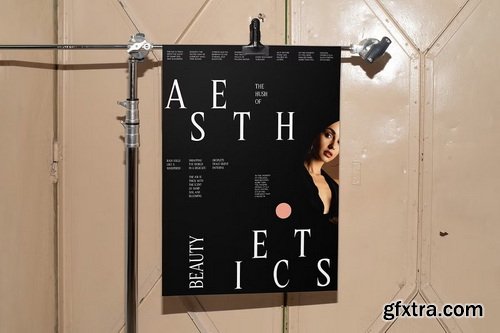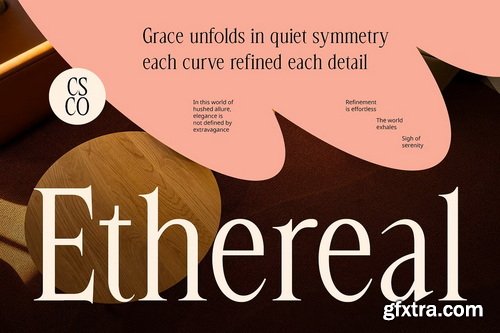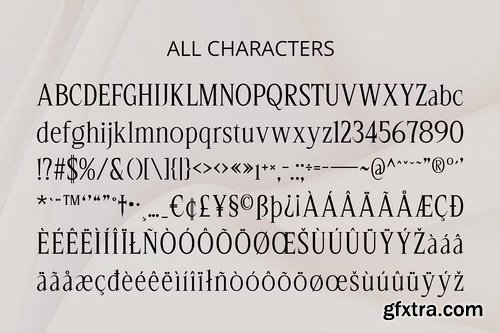
Modern Serif Font with Elegant Long Serifs CS Rosetta is a modern serif font that captures the essence of classic typography while embracing a fresh, contemporary flair. Its distinctively elongated serifs lend a refined and graceful character, perfect for designers who seek a balance between tradition and innovation. Proportional Forms for Elegant Readability Crafted with clean lines and well-balanced proportions, CS Rosetta ensures readability while maintaining a luxurious tone. The subtle contrast and sophisticated letter structure make it ideal for delivering clear, impactful messages in elegant settings.